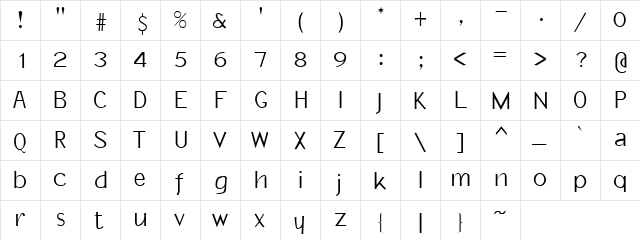
Paresis Normal Font Preview
Paresis Normal
Paresis Normal Font Details
Design Context for Paresis Typeface
Paresis offers clean, dependable letterforms without strong stylistic allegiance, making it a practical choice for designers who need flexibility.